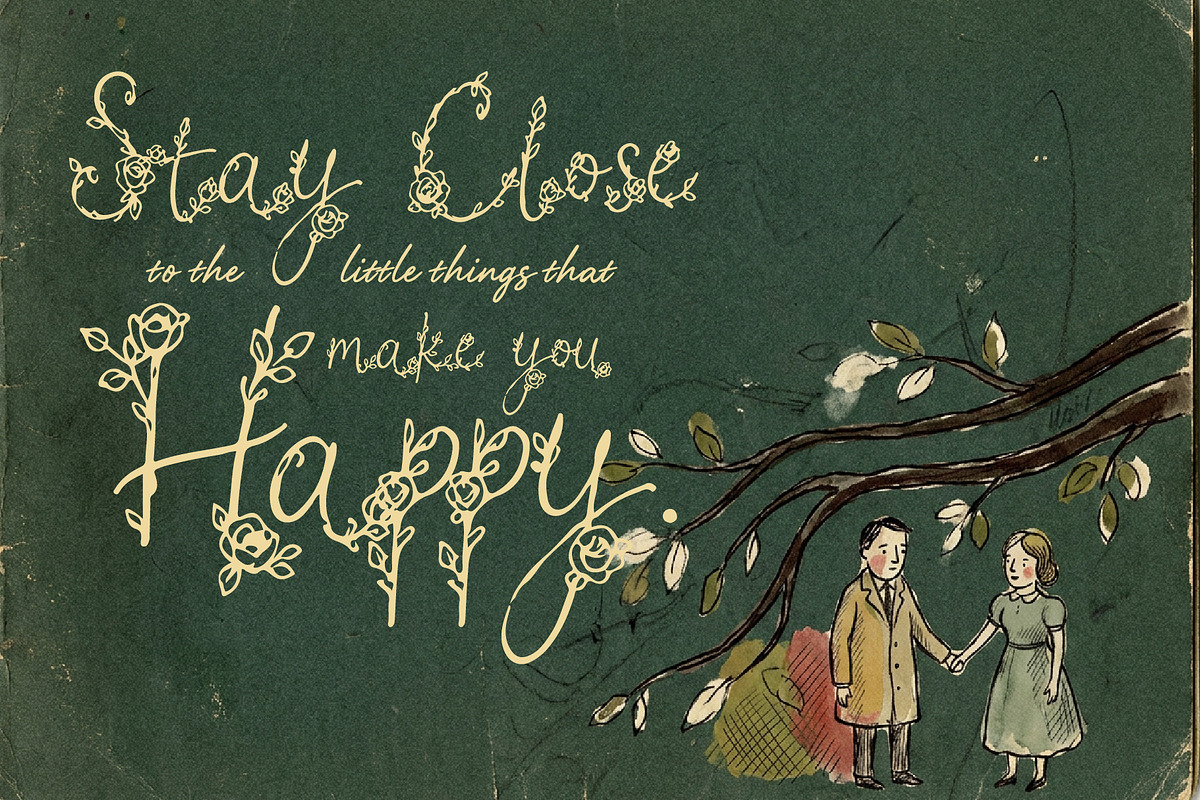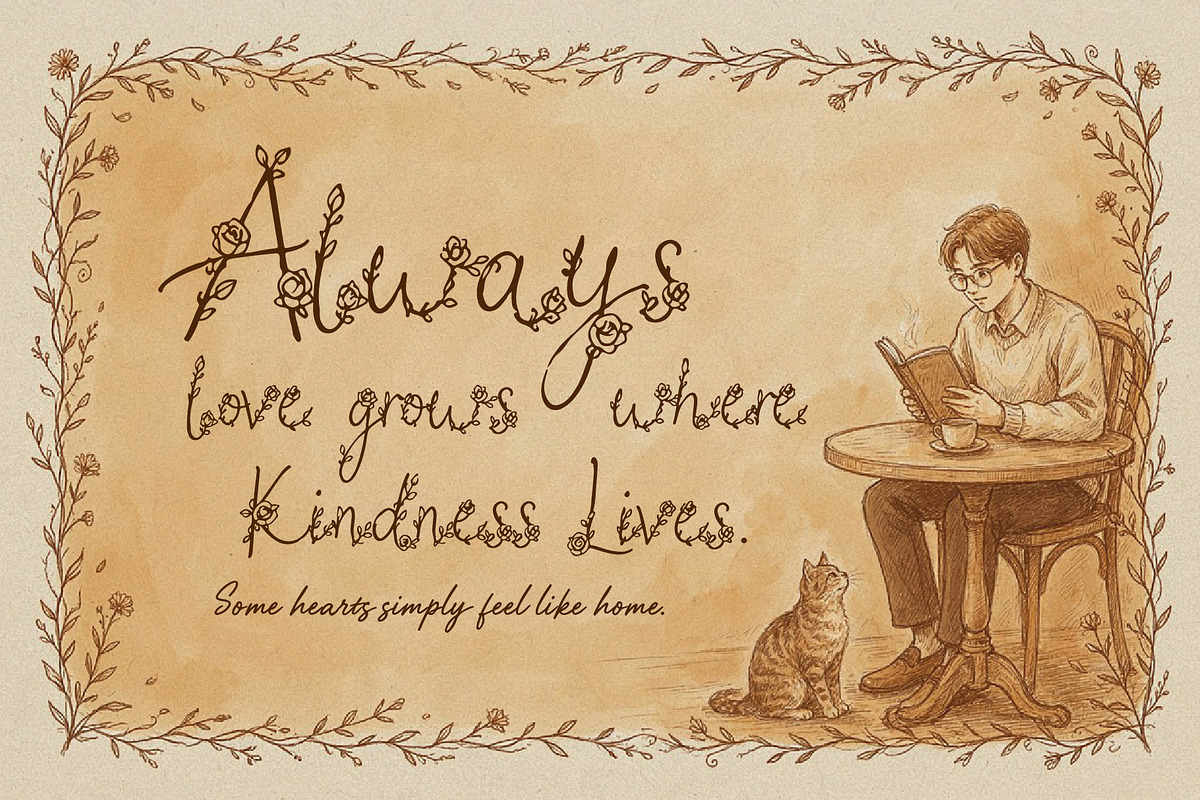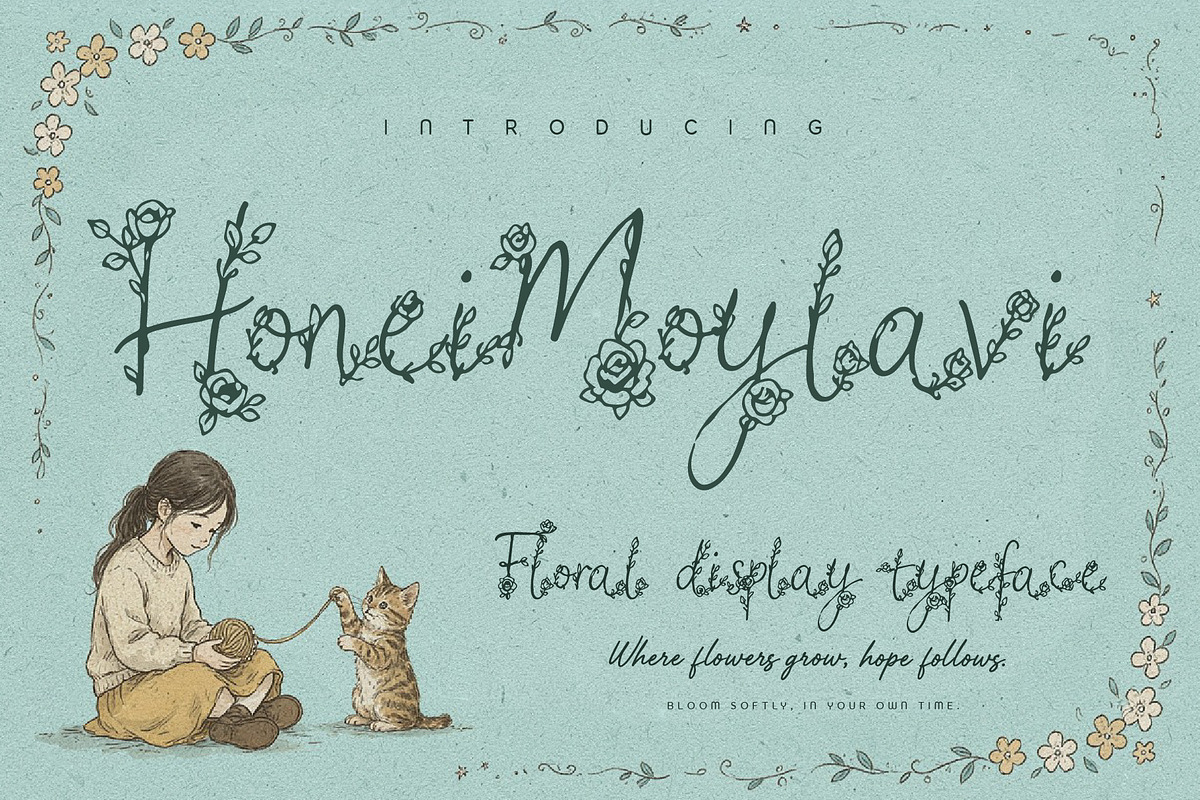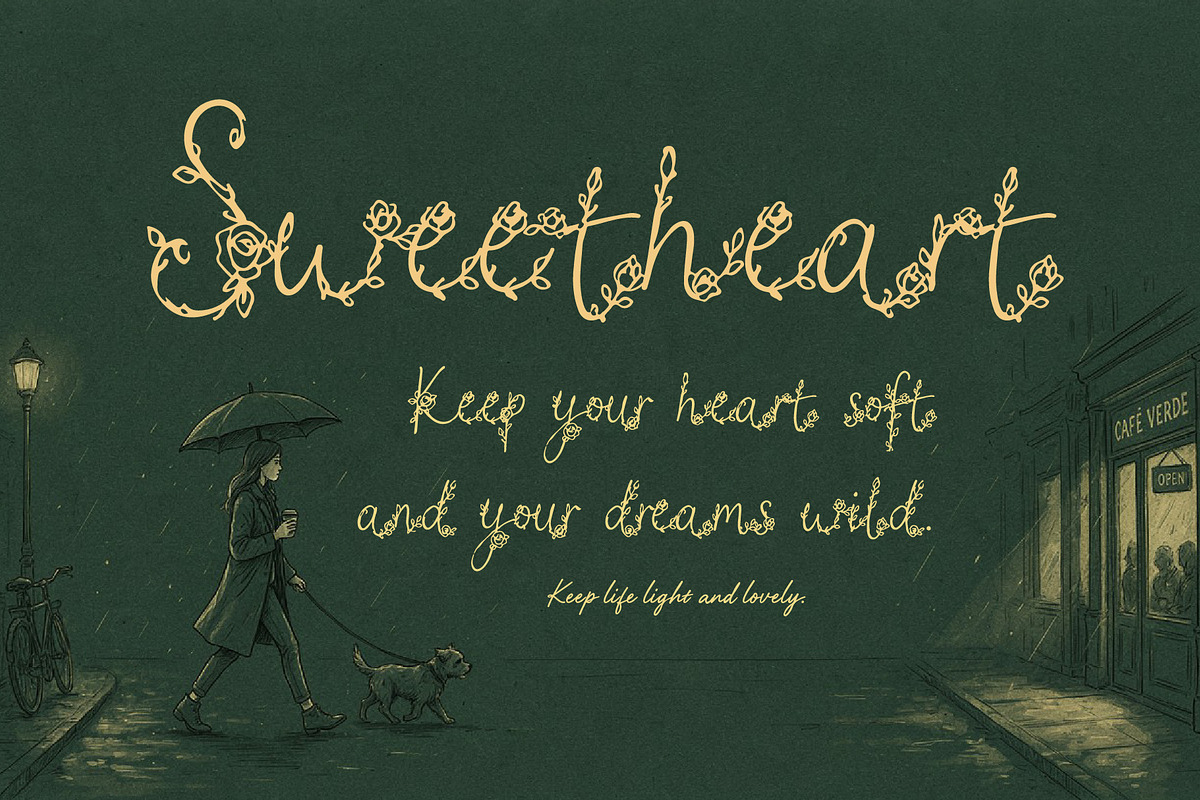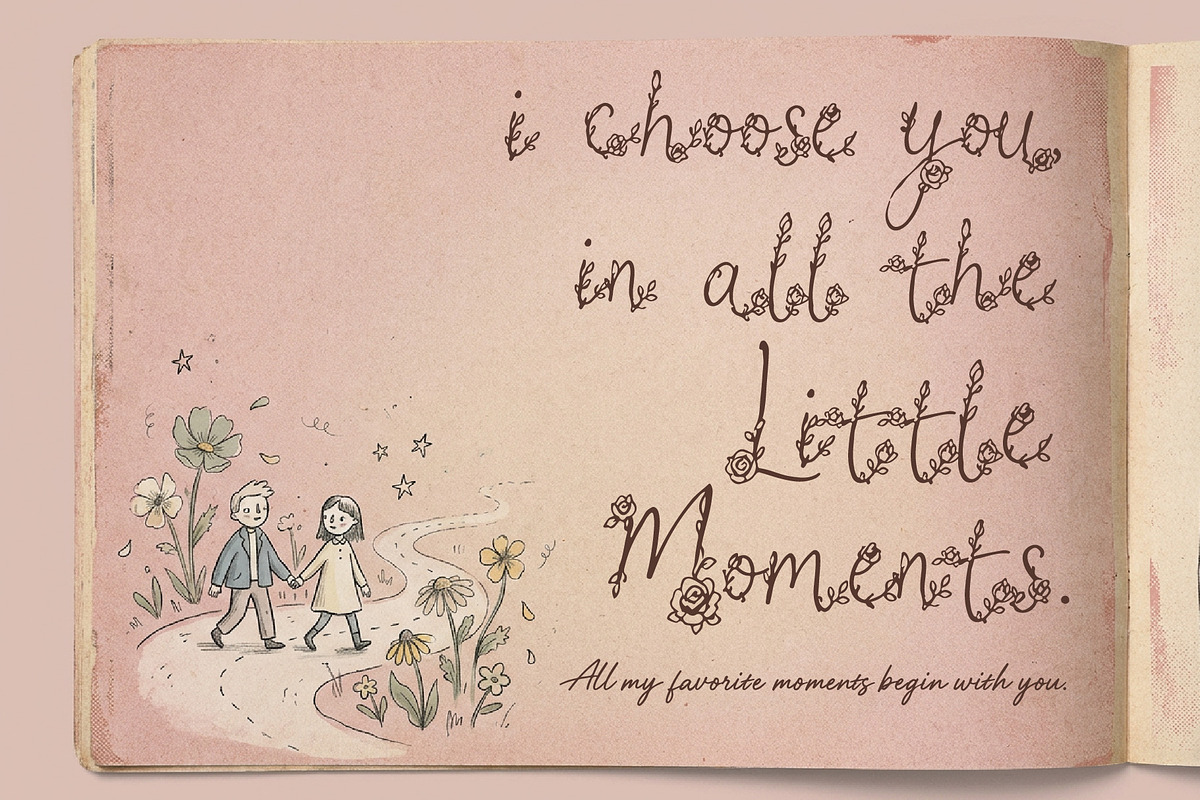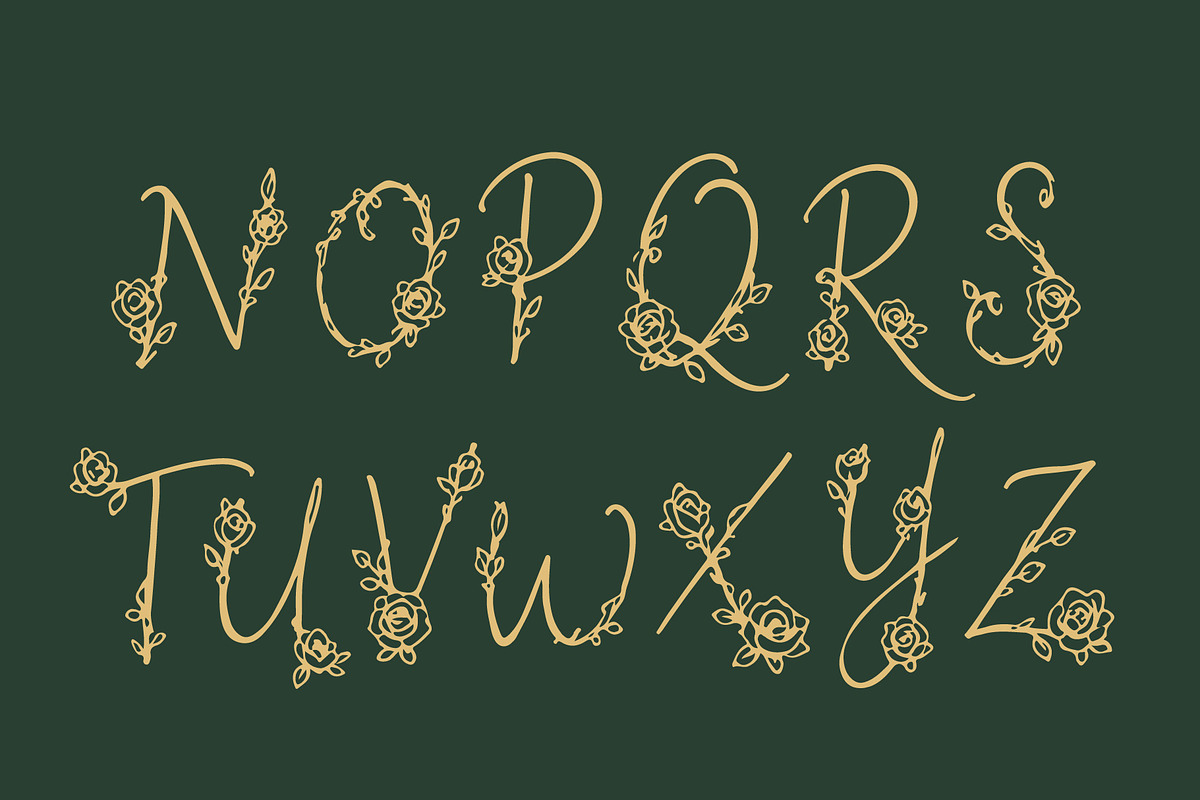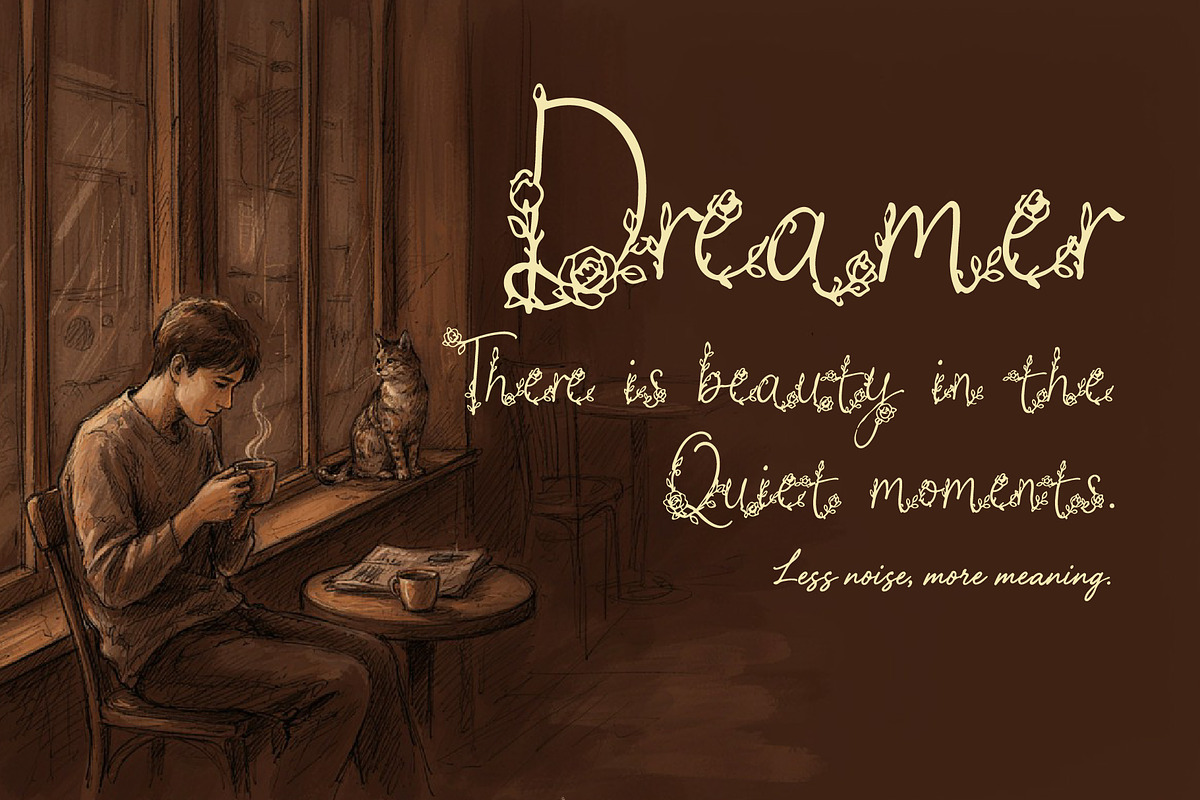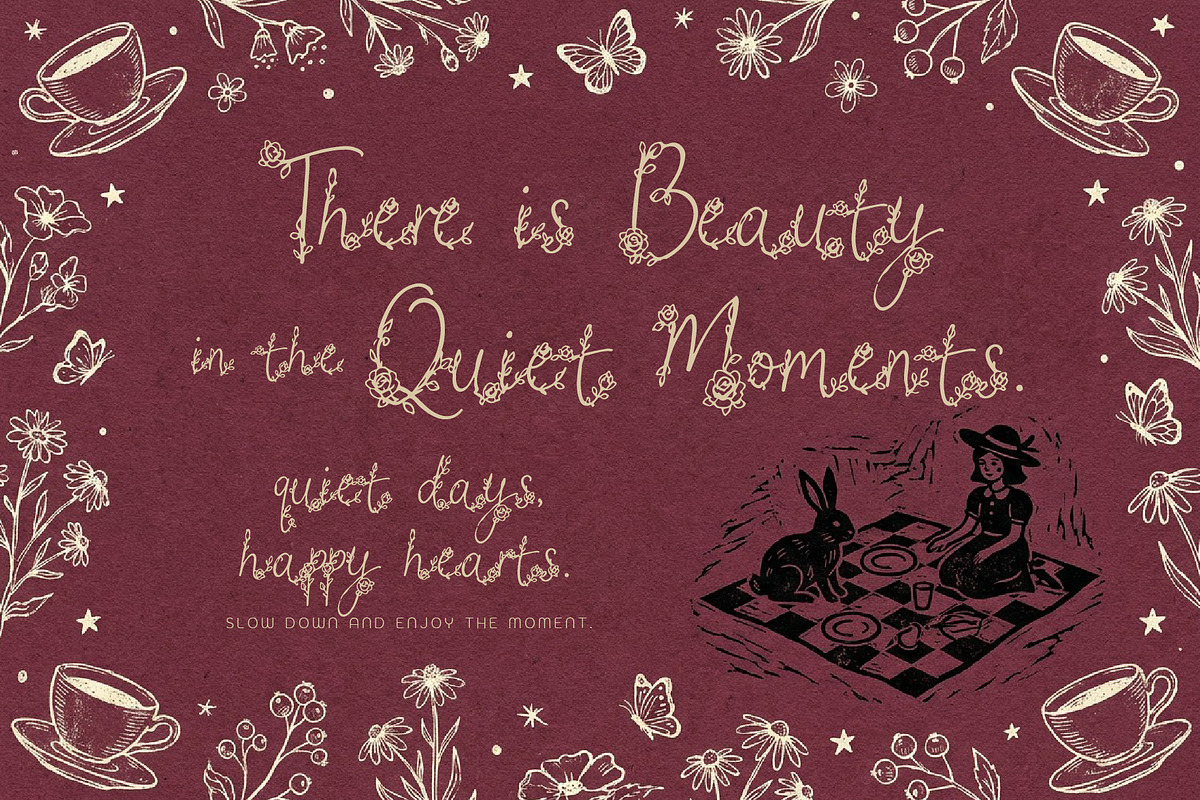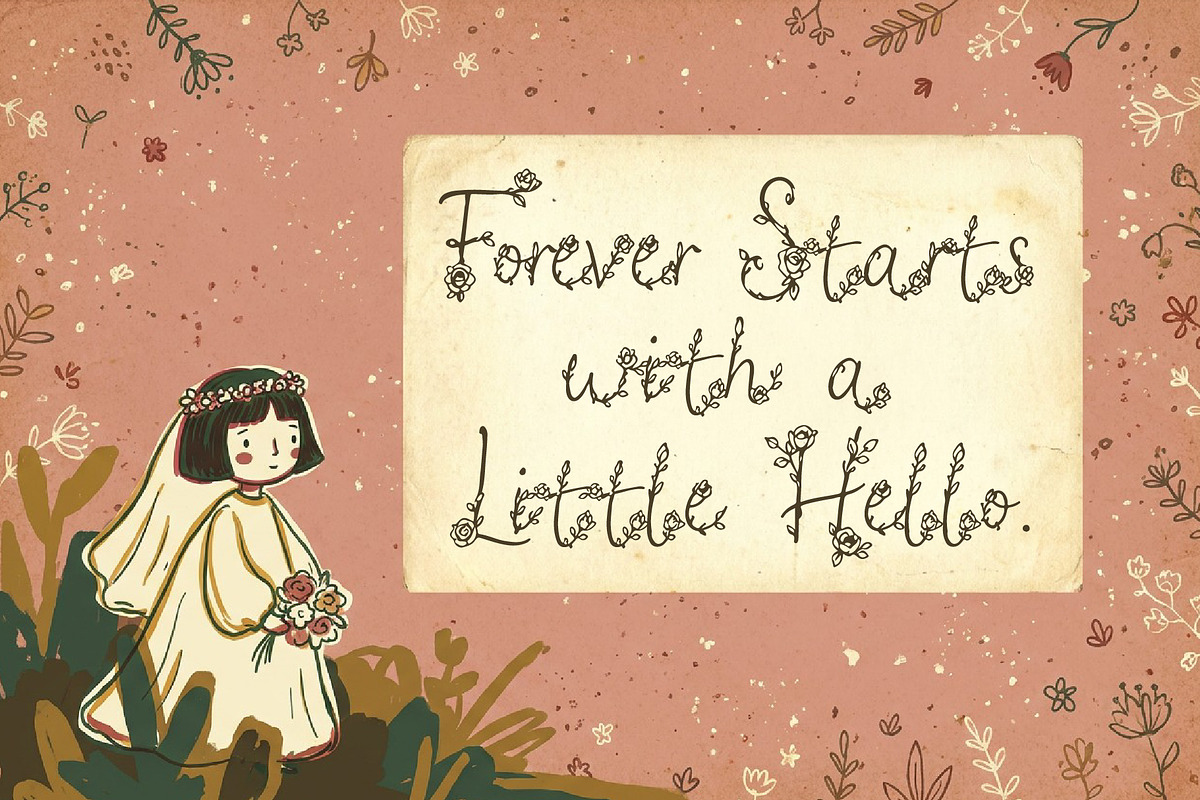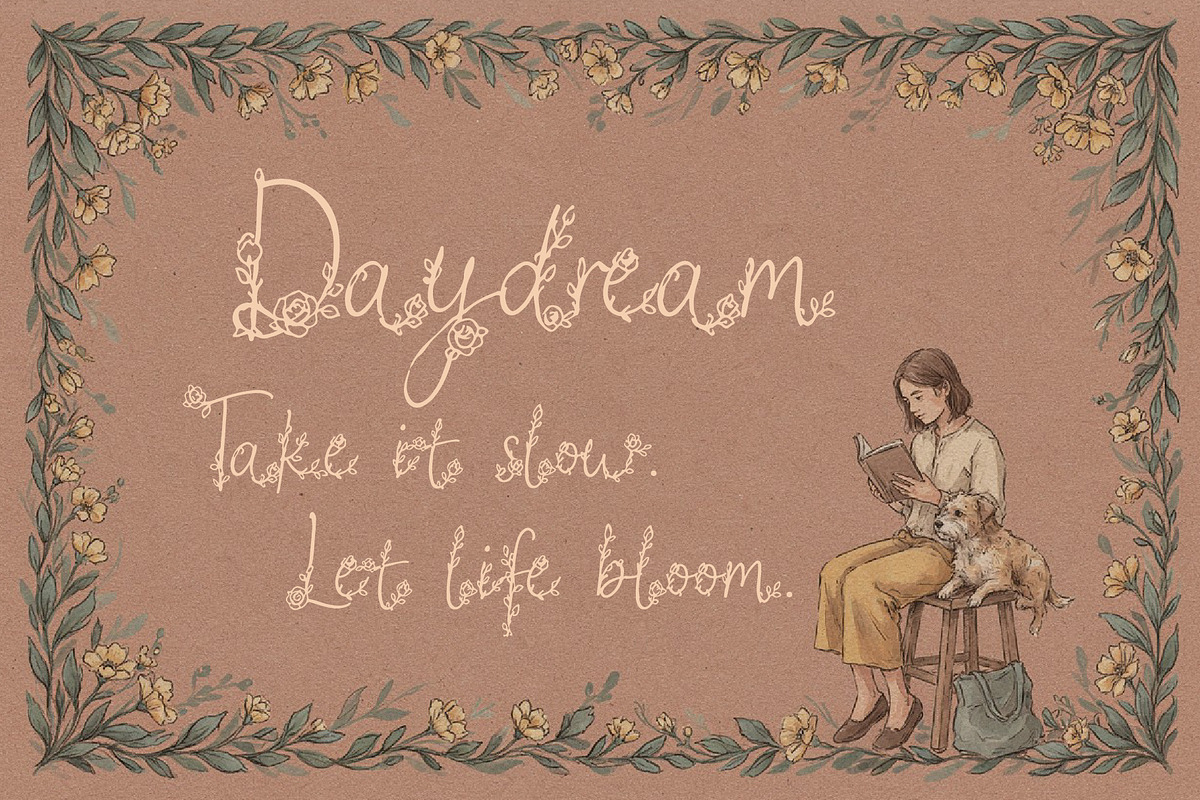
HoneiMoylavi, Delicate Floral Script
HoneiMoylavi is a delicate handwritten script designed with a romantic, effortless touch. Its flowing letterforms are paired with graceful floral decorative elements, creating a soft and charming personality without feeling overly ornate.
Perfect for wedding invitations, greeting cards, feminine branding, beauty products, stationery, packaging, social media designs, romantic quotes, and elegant lifestyle projects. HoneiMoylavi brings a warm handwritten character that feels personal, gentle, and beautifully imperfect.